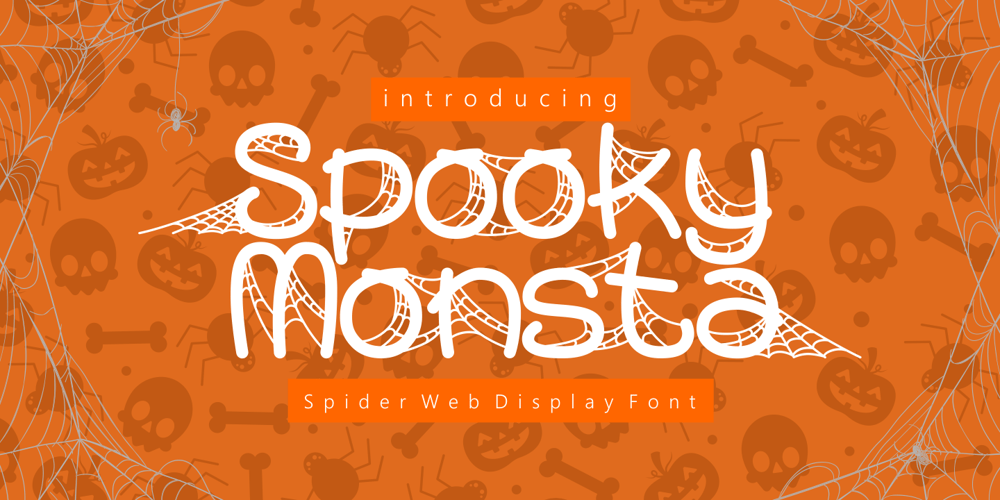
Spooky Monsta Font Family was designed by Putra Novembria Candra Kusuma and published by Putracetol. Spooky Monsta contains 1 styles and family package options. Spooky Monsta is a spider web display font. This font is inspired by an old embossed nameplate with cobwebs in it. So I made it a font. This font has an uppercase and lowercase version that doesn’t have a cobweb, so you can be more creative. In addition, this font has a ligature feature that makes the cobwebs of each word cooler.Spooky Monsta would be perfect for Logo, title, logotype, cover, headline, apparel, comic, cover books, cards, posters, or anything that requires a horrror or scarylook!